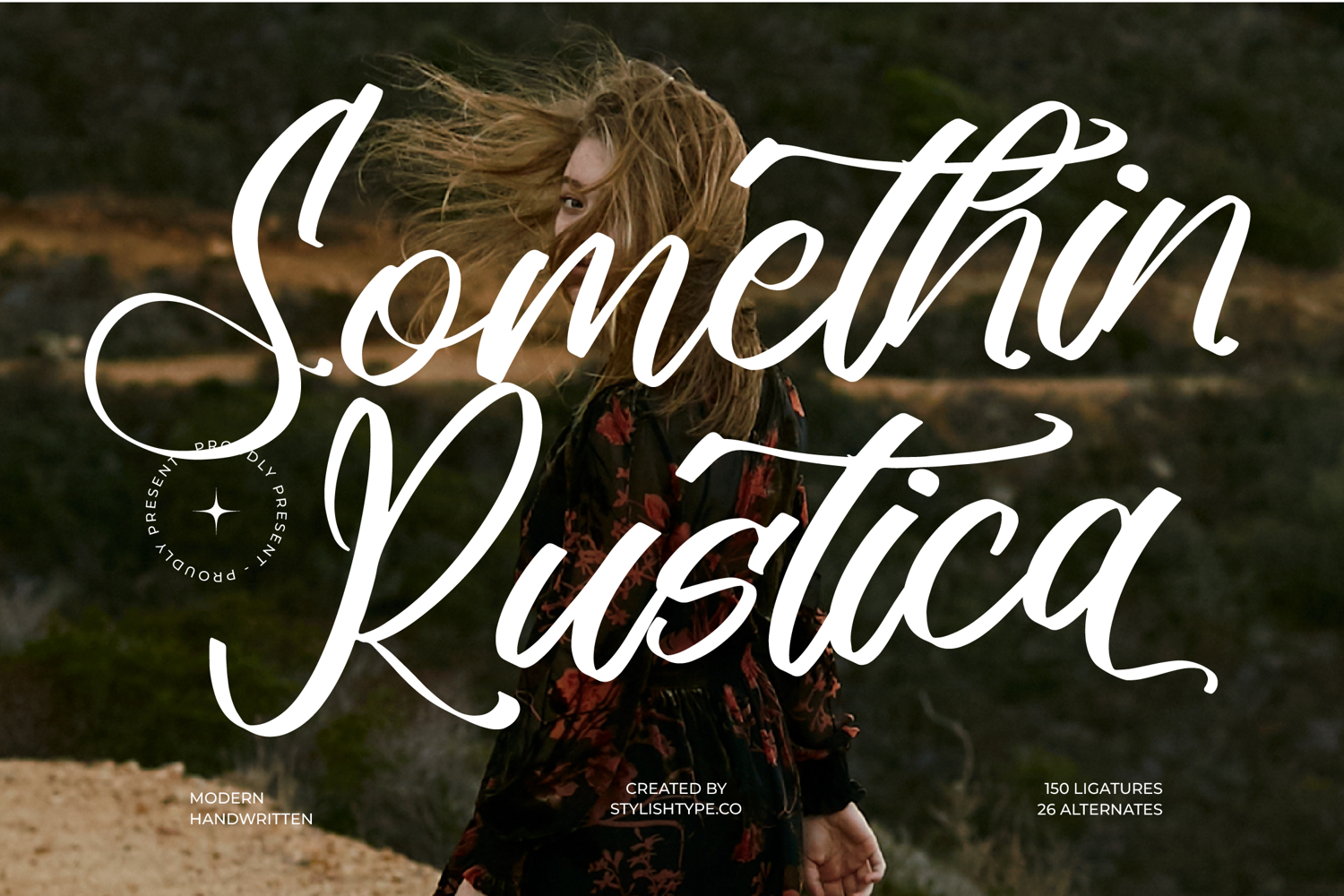
Somethin Rustica - Modern Handwritten Font
Somethin Rustica
Somethin Rustica Italic
Somethin Rustica - Modern Handwritten Font, a breathtakingly fluid script that marries raw, authentic handwriting with polished, contemporary elegance. Its strokes are defined by a beautiful, sweeping energy, providing a true sense of movement and flair that captures immediate attention. This high-contrast typeface utilizes dramatic swashes and generous character widths to create truly bespoke wordmarks and headlines, ensuring your message is both memorable and stylistically unique.